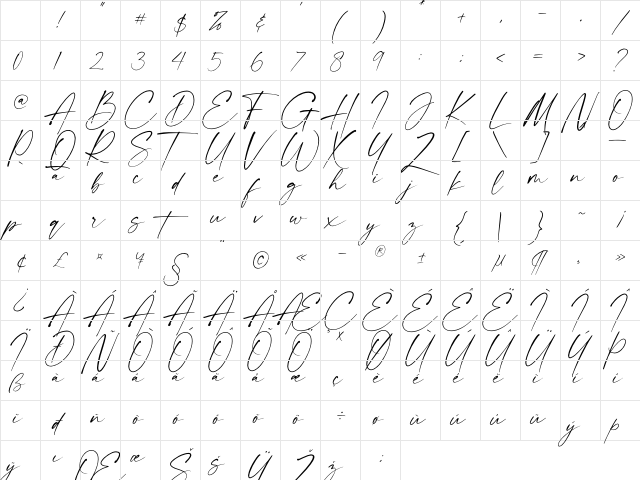
Complete modernline - Personal Use Regular glyph index. Displaying only characters natively supported by modernline - Personal Use Regular font.
modernline - Personal Use is a composed and adaptable typeface that performs quietly and consistently across a wide range of design contexts.
Who designed the modernline - Personal Use Regular font?